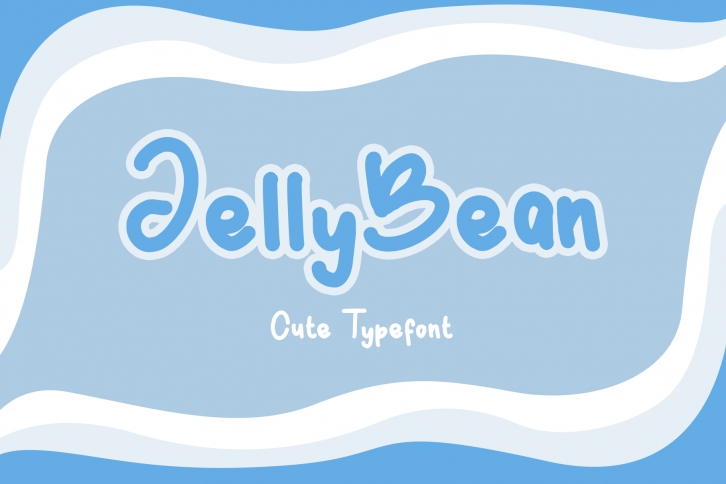
JellyBean is a beautiful font that was designed by Analogous. It's a great choice for designers and creatives who need such a font. It was released on February 5, 2020 and the file size is 1.41 MB. JellyBean may give a more youthful, expressive and casual look to your project. It is a very beautiful, refined, elegant, and high-quality font.